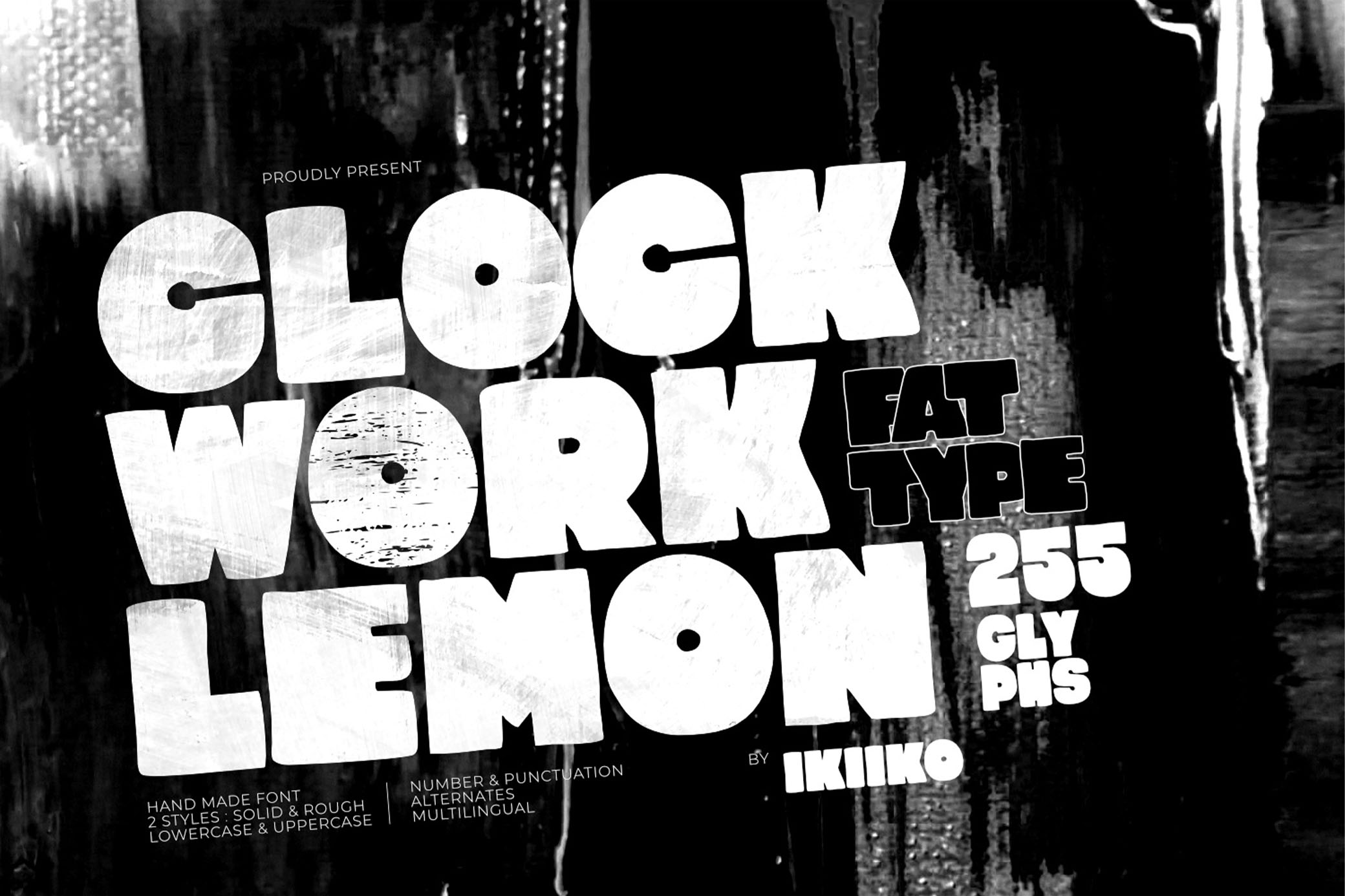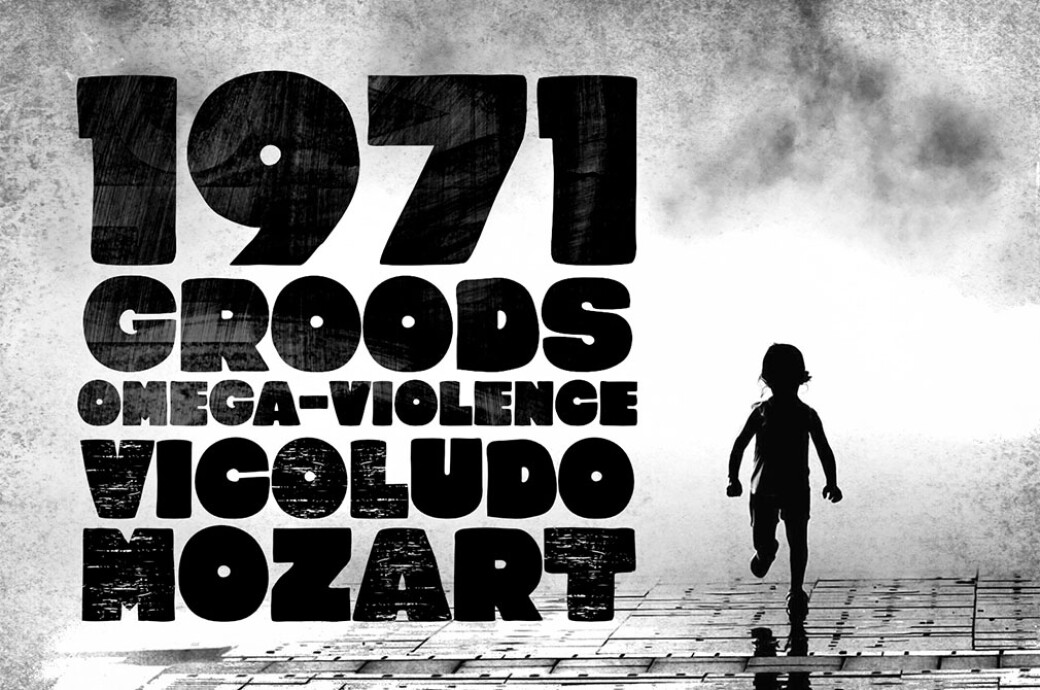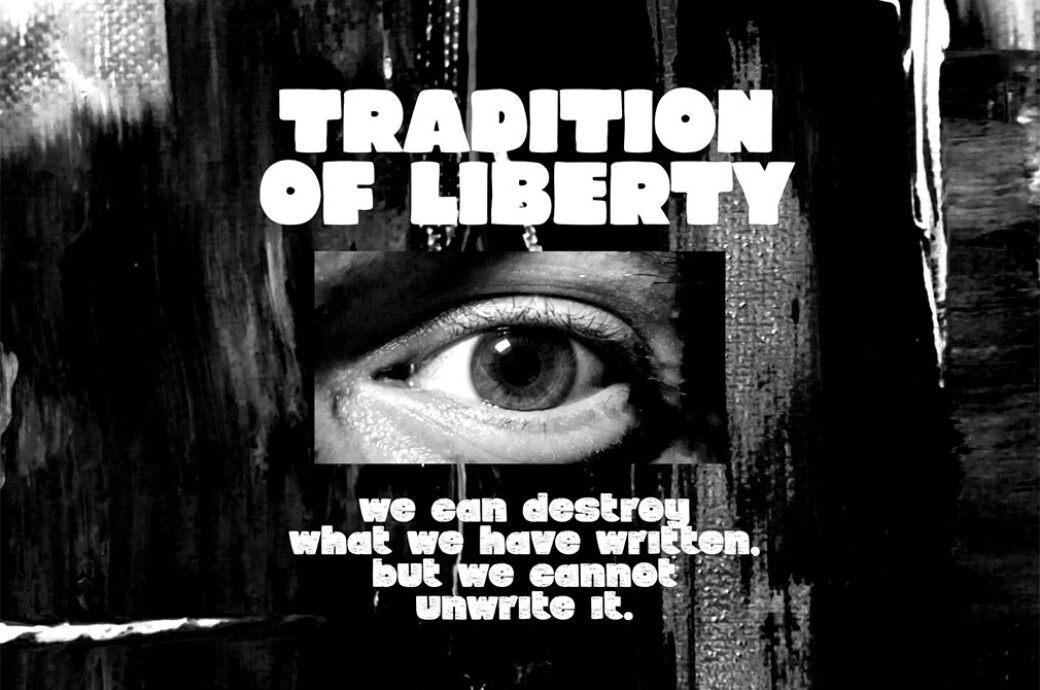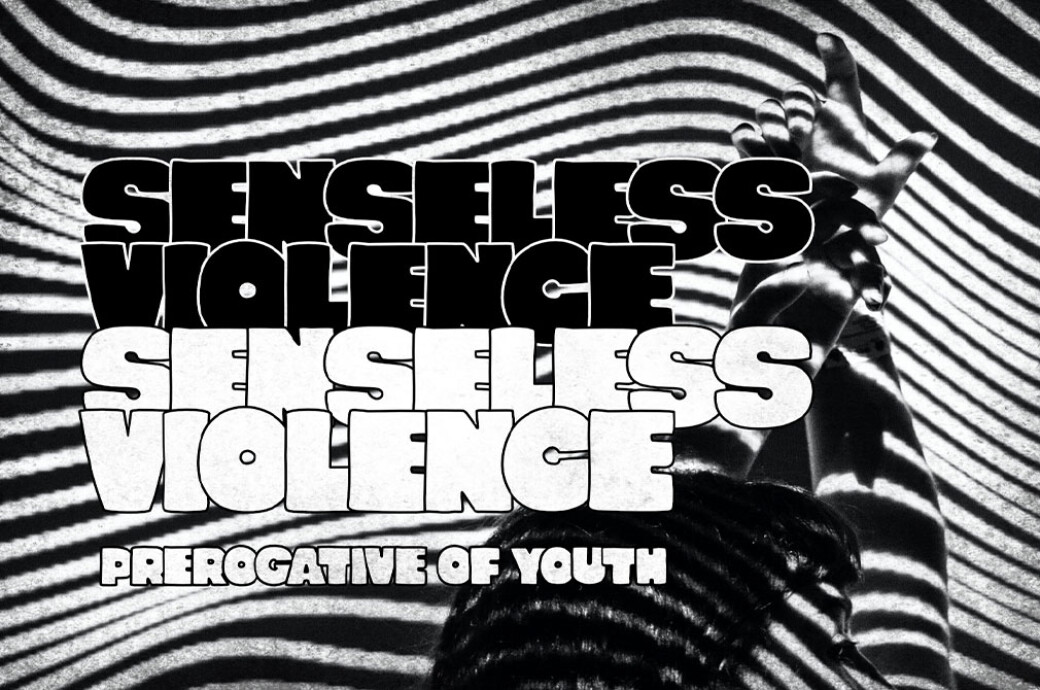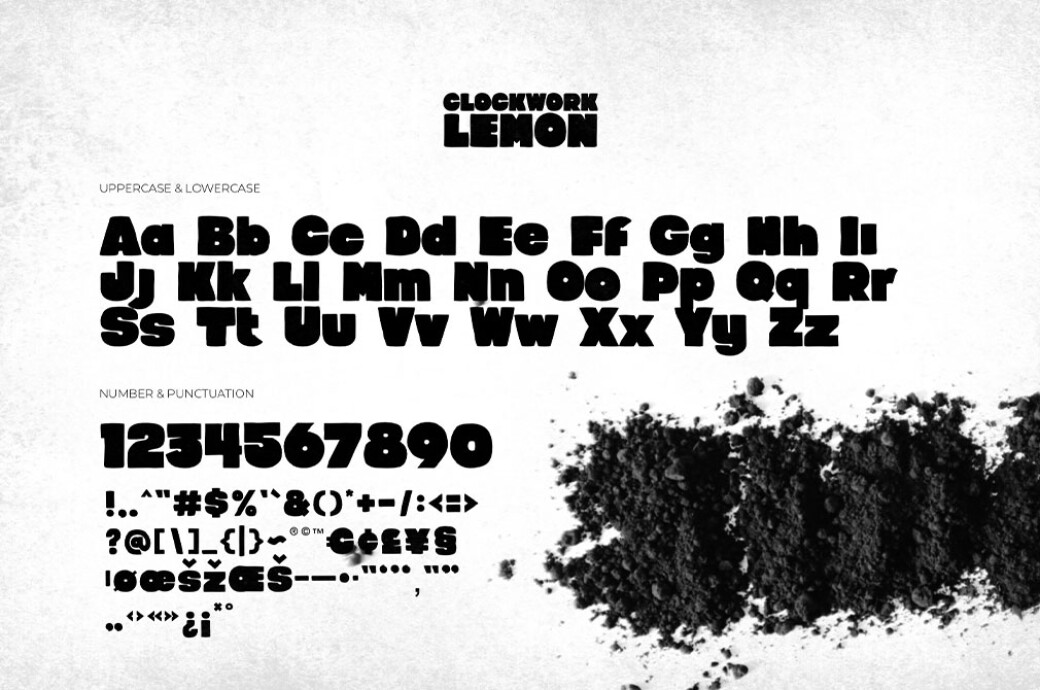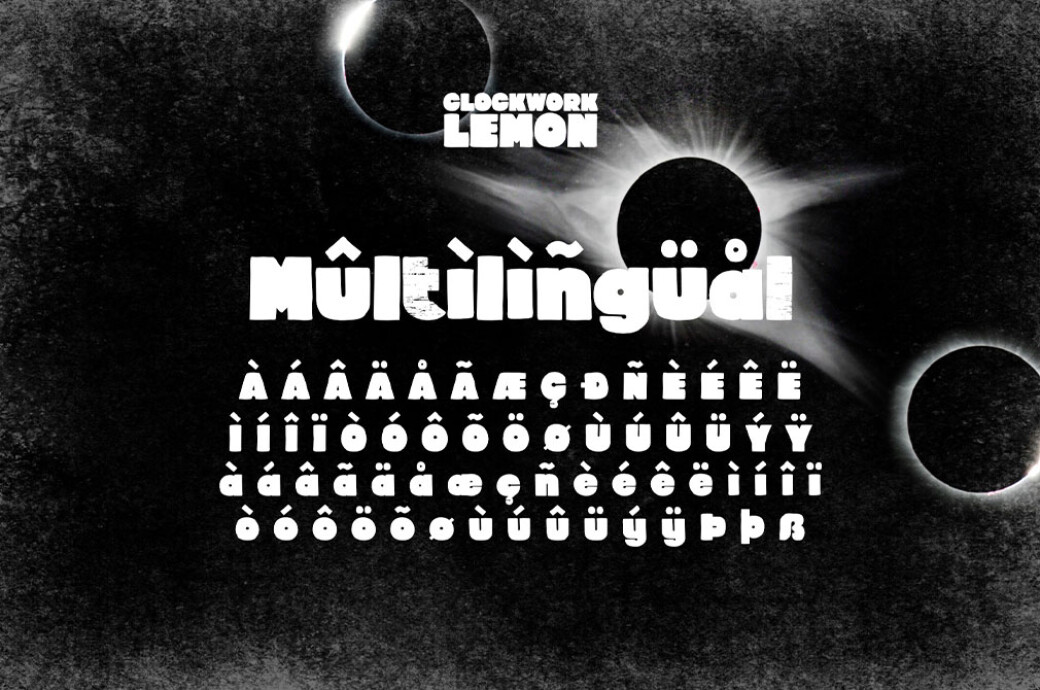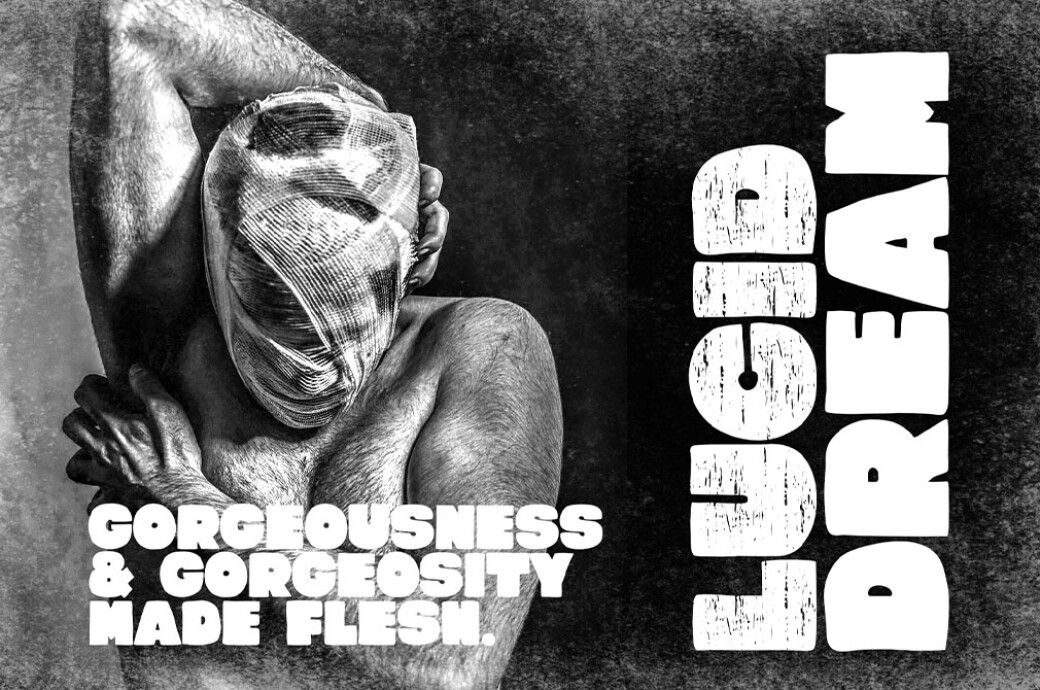
Clockwork Lemon — Fat Type
Inspired by the legendary Clockwork Orange by Stanley Kubrick, this font provides the same raw, rough feeling as the one used in the movie’s title.The Clockwork Orange is a controversial movie and surely an acquired taste, but we can’t say it about this font! In case you’re a fan of bold types, this one is a must for your toolbox. The type comes in 2 styles Solid & Rough — stick to one for the artwork or mix, there are no limits. You’ll also find upper and lowercase letters, numbers, punctuation and multilingual support in the archive.